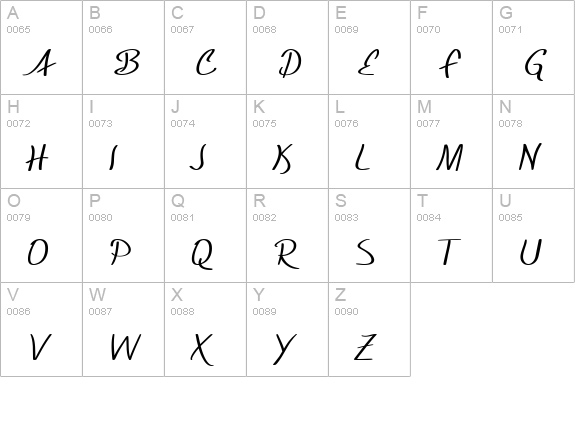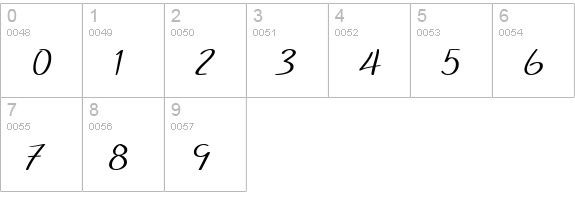
SF Foxboro Script Extended Font Details
SF Foxboro Script Extended is a distinctive, extended-width variant in the SF typeface family \xE2\x80\x94 well suited to design and typography projects.
SF Foxboro Script Extended is an exquisite and elegant font that adds a touch of sophistication to any design. This font is perfect for those seeking a stylish and modern look, while still maintaining a sense of grace and refinement. Its elongated and flowing letterforms create a captivating and luxurious impression, making it ideal for branding, packaging, invitations, and more. What sets SF Foxboro Script Extended apart is not just its stunning aesthetics, but also its versatility. It can be used for both formal and informal occasions, effortlessly adapting to various design needs. Whether you're designing a high-end fashion magazine or a wedding invitation, this font will elevate your project to the next level. One of the best features of SF Foxboro Script Extended is that it is free to download at FontsMarket.com. This means that you have the opportunity to enhance your designs with this stunning font without any cost. It's a perfect option for designers on a budget or anyone who appreciates the value of free resources. In terms of functionality, SF Foxboro Script Extended doesn't disappoint. The font is highly legible, ensuring that your message is easily understood. It also includes a wide range of characters, including alternates and ligatures, allowing you to create unique and personalized designs. Additionally, the font is compatible with both Mac and Windows operating systems, making it accessible to designers across different platforms. SF Foxboro Script Extended exudes an air of sophistication and luxury that is sure to captivate your audience. Its timeless beauty and versatility make it a valuable asset for any designer, and the fact that it is freely available to download at FontsMarket.com makes it even more appealing. Don't miss out on the opportunity to elevate your designs with the stunning SF Foxboro Script Extended font.